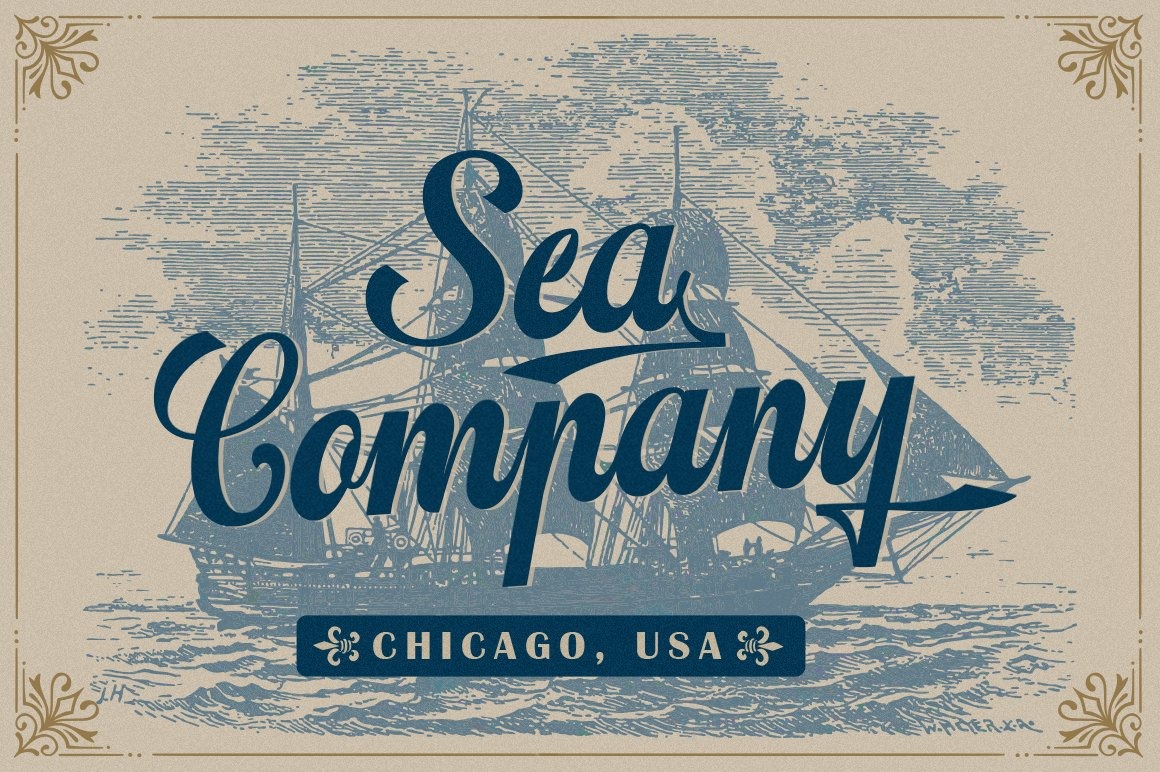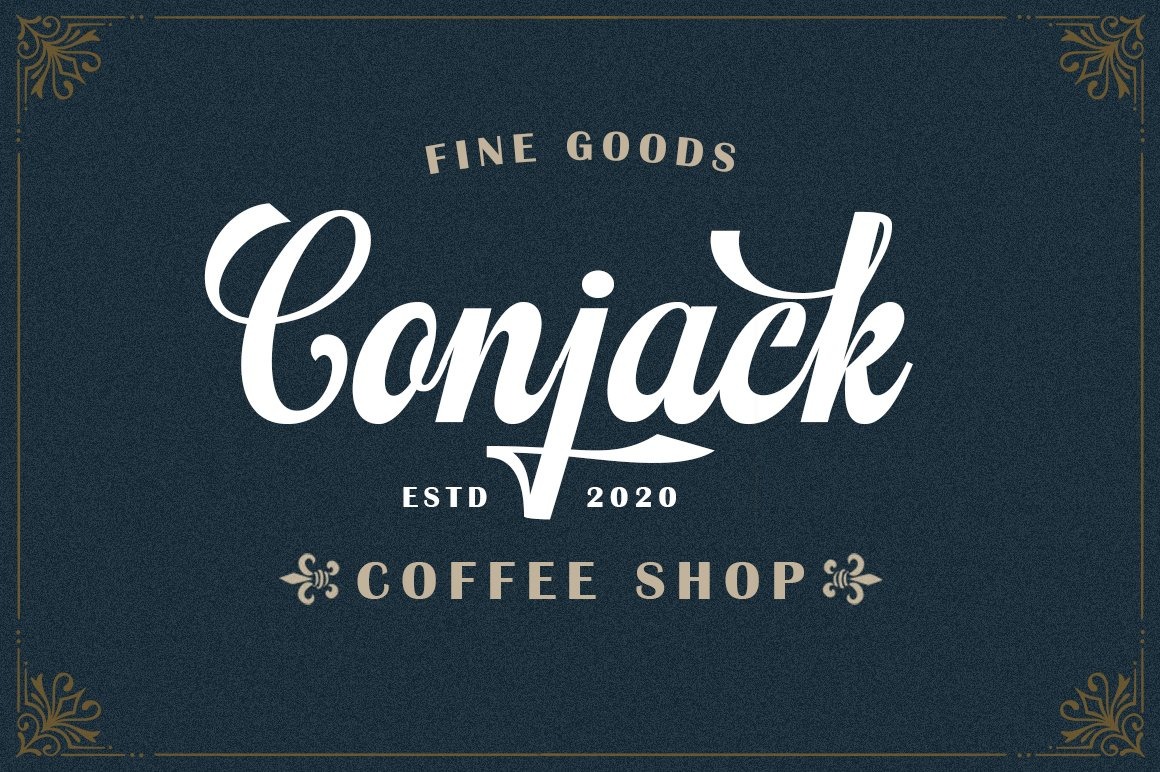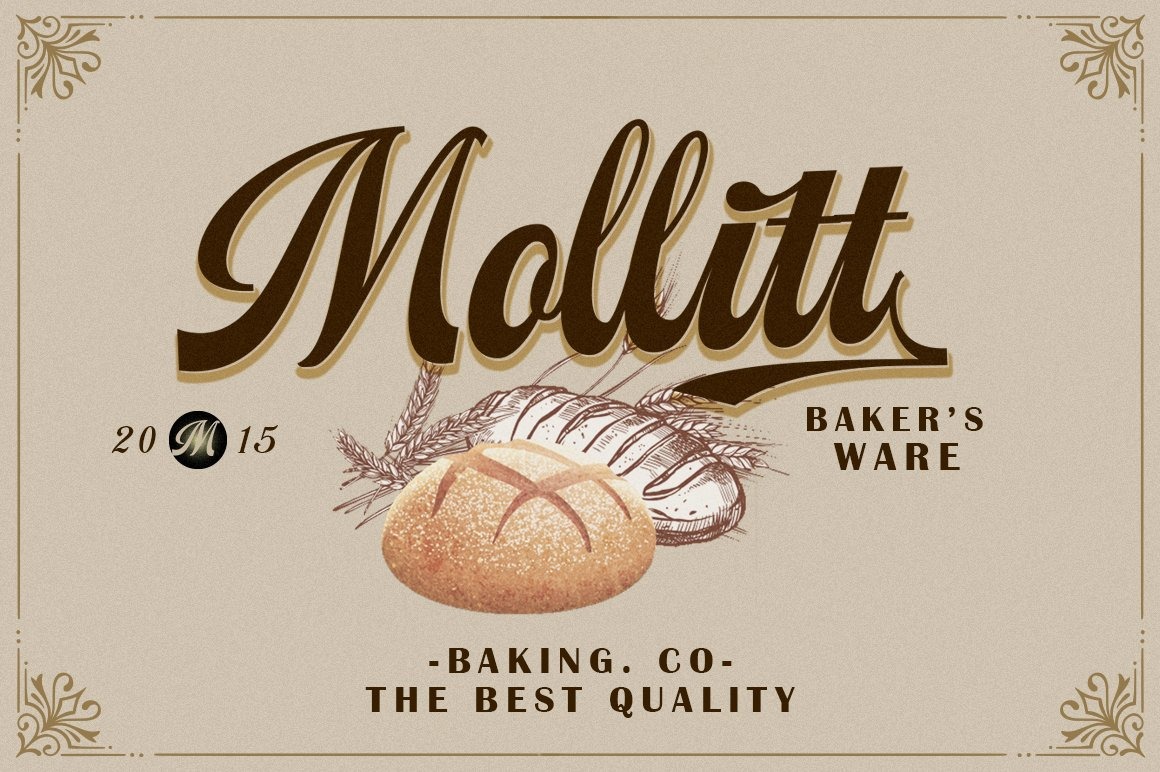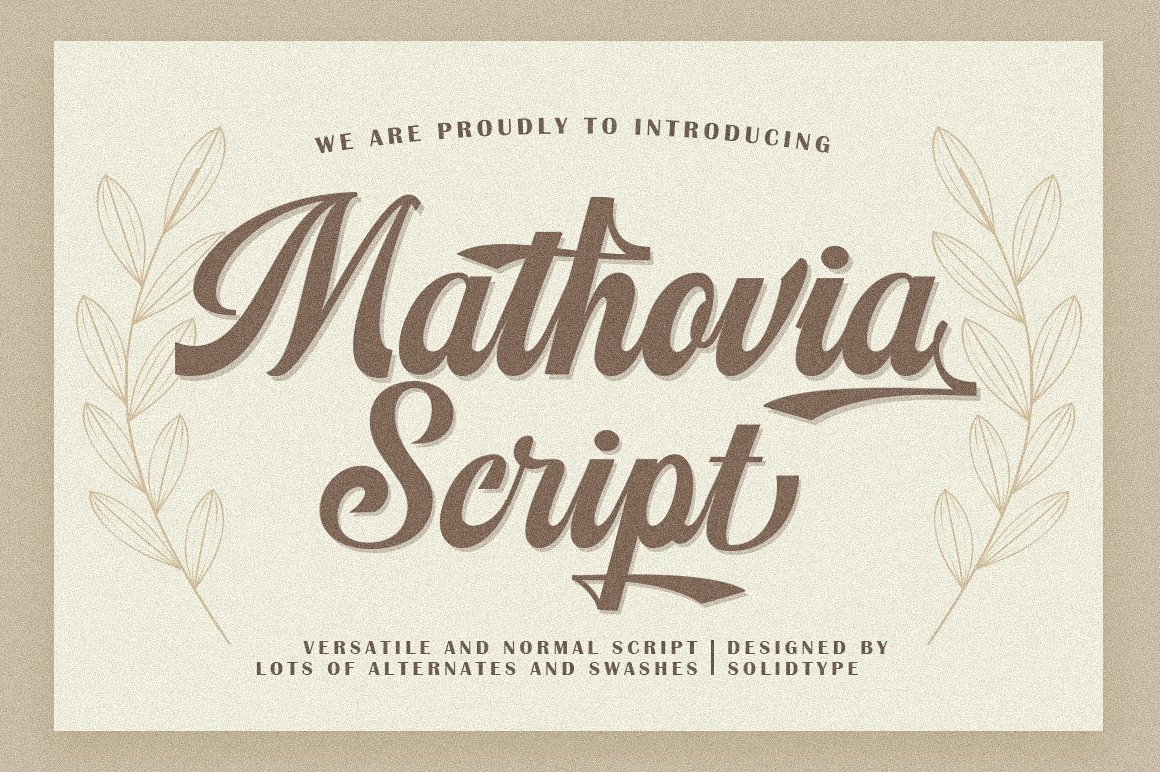
Mathovia Script Font is a classy display script inspired by the romantics era. A sweep makes this type of letter more unique so you can use it to create beautiful vintage letters. Opentype features with alternative styles. Can be used for various purposes. such as posters, t-shirts, signage, logos, news, badges etc. International support for most Western languages is included.